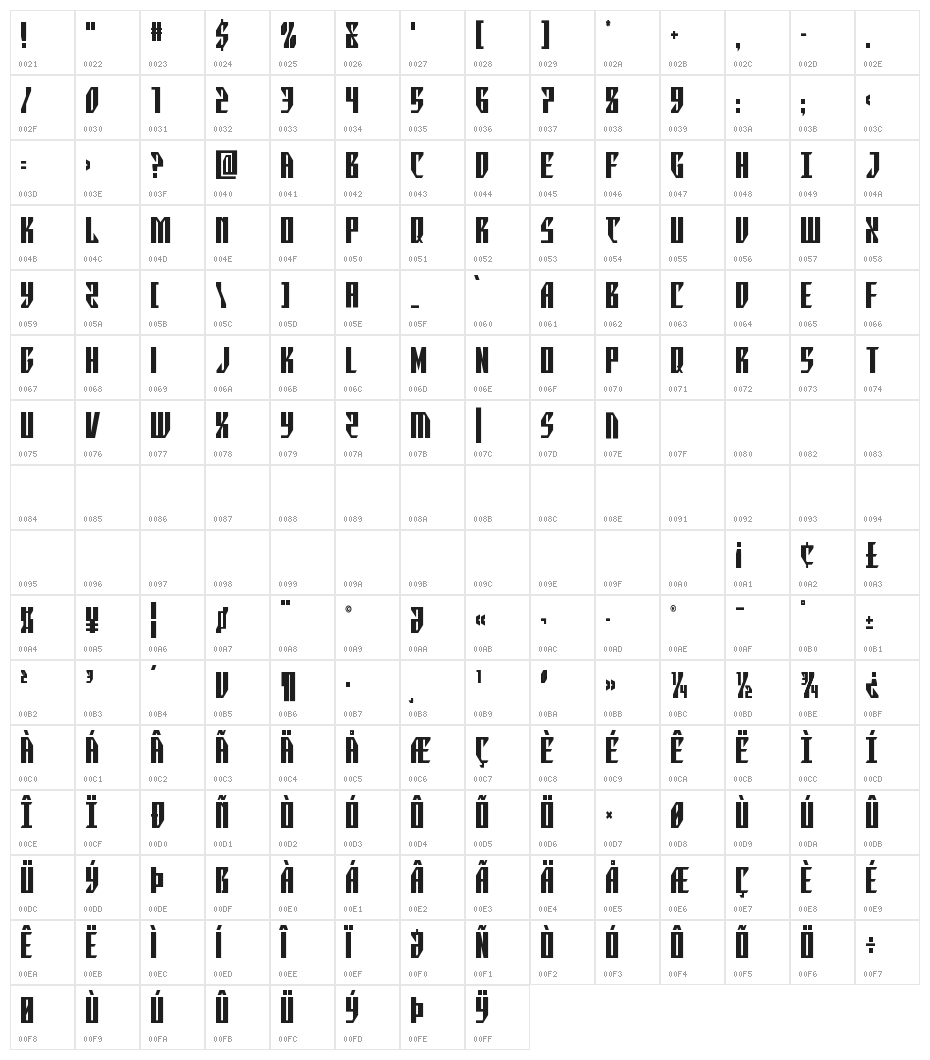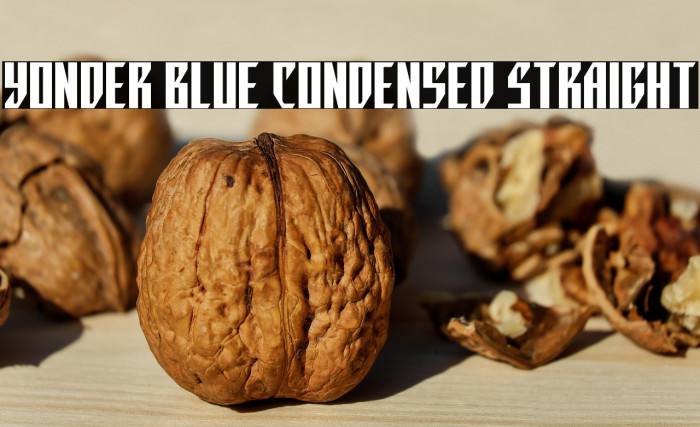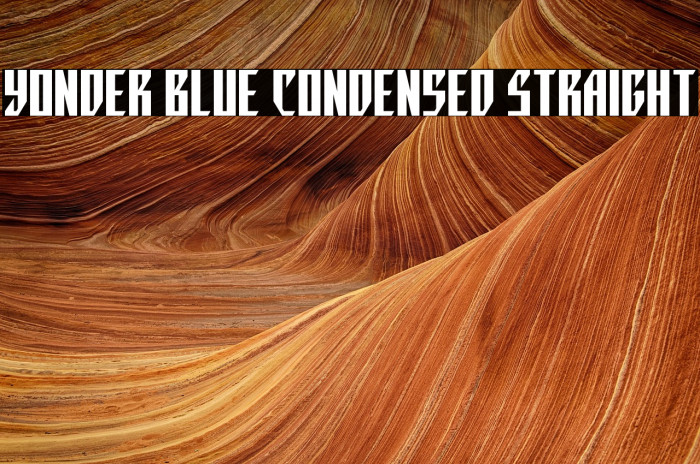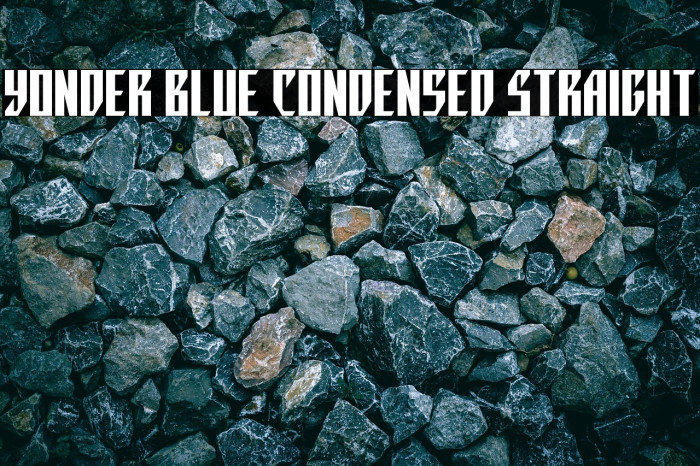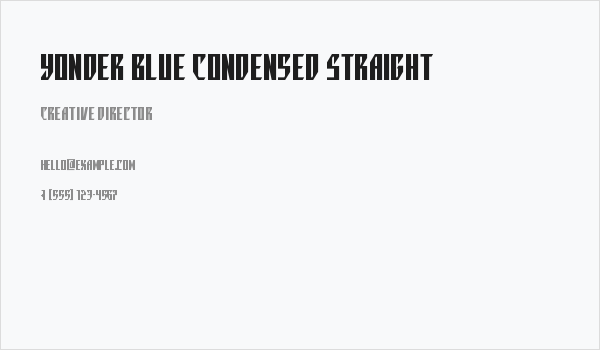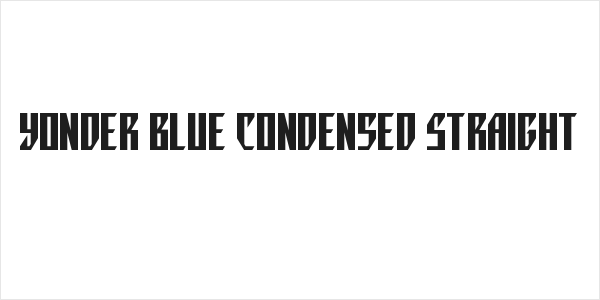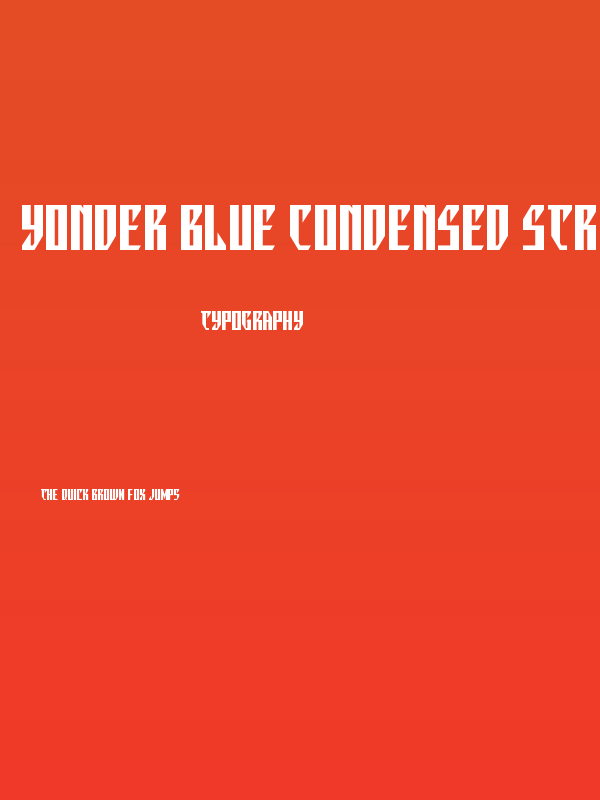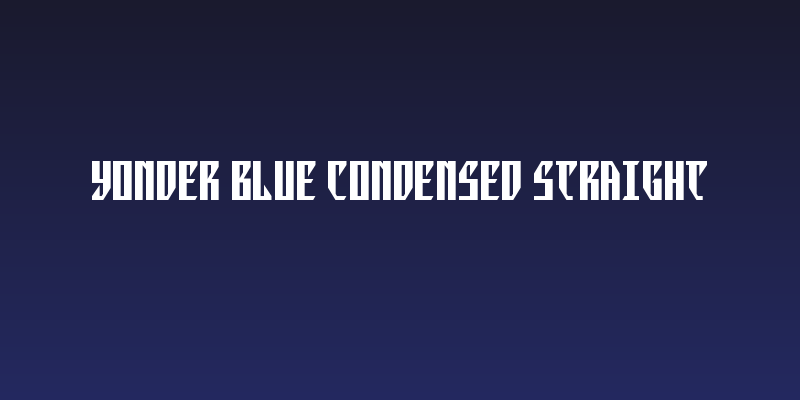
Yonder Blue Condensed Straight Font
Yonder Blue Condensed Straight Description
This font exhibits a bold and striking geometric style with sharp, angular lines and a condensed form. The uppercase and lowercase letters maintain a consistent height, giving it a uniform appearance. The characters are designed with a modern, futuristic aesthetic, featuring straight edges and minimal curves. The numbers and special characters follow the same design principles, ensuring a cohesive look across all elements. The font's distinct style makes it highly suitable for attention-grabbing headlines and impactful designs.